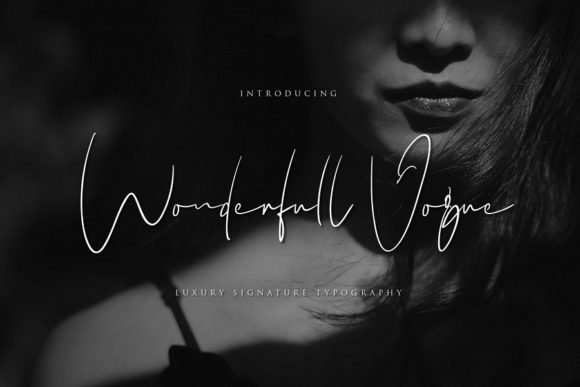
Behold, Wonderfull Vogue Font - a script font family that will ignite your creativity and transform your designs into masterpieces. Created by the ingenious Aqeel_Art, Wonderfull Vogue is a thin-lettered, sweet calligraphy typeface that dances along the baseline, adding a touch of elegance and sophistication to your projects.
With Wonderfull Vogue, your words will come alive, captivating your audience with their graceful curves and delicate strokes. This font is perfect for creating stunning logos, eye-catching headlines, and enchanting invitations. Its versatility extends to branding projects, where it can add a touch of luxury and charm to your brand identity.
Imagine your website adorned with Wonderfull Vogue, its slender characters dancing across the screen, inviting visitors to explore your creative world. Or envision your social media posts, alive with Wonderfull Vogue's charm, capturing the attention of your followers and leaving them in awe.
Wonderfull Vogue is more than just a font; it's an artistic expression that will elevate your designs to new heights. Its thin, elegant strokes will add a touch of allure to your projects, whether you're creating wedding invitations, fashion posters, or greeting cards.